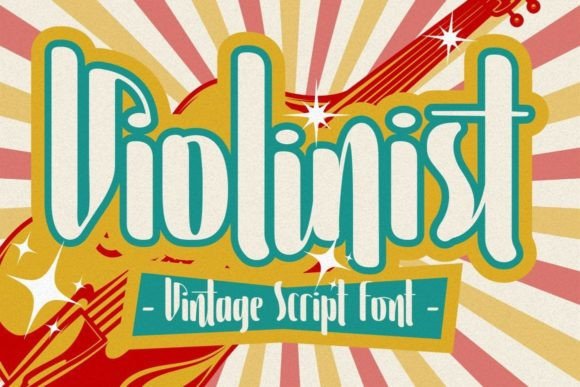
Unleash your creativity with Violinist Font, the vintage script font that captures the essence of classic billboards. Inspired by the timeless charm of yesteryears, Violinist offers a unique blend of nostalgia and modernity, making it the perfect choice for projects with a vintage or retro theme.
Journey back in time with Violinist's captivating script style, meticulously crafted to evoke the elegance and allure of bygone eras. Its slightly irregular shape adds a touch of intrigue, setting it apart from the ordinary. Whether you're designing logos, branding, or creating eye-catching posters, Violinist promises to leave a lasting impression.
Transport yourself to a world of vintage charm with Violinist's versatility. Ideal for greeting cards and invitation cards, its delicate strokes add a touch of sophistication, ensuring your messages stand out. Unleash your creativity with advertisements, titles, and headlines that exude a sense of timeless elegance.
Violinist's versatility extends beyond the digital realm. Embark on a creative journey as you explore its potential for book titles, stickers, and packaging. Transform ordinary objects into works of art, adding a touch of vintage flair to every project you undertake.
With Violinist, your designs will sing. Quotes, posters, and t-shirts/apparel take on a new life, infused with the spirit of the past. Let your imagination soar as you create designs that speak to the heart and capture the attention of all who see them.
Violinist awaits you, ready to unlock your creativity and take your designs to new heights. Embrace the vintage charm and endless possibilities it offers, and elevate your projects to new levels of sophistication.